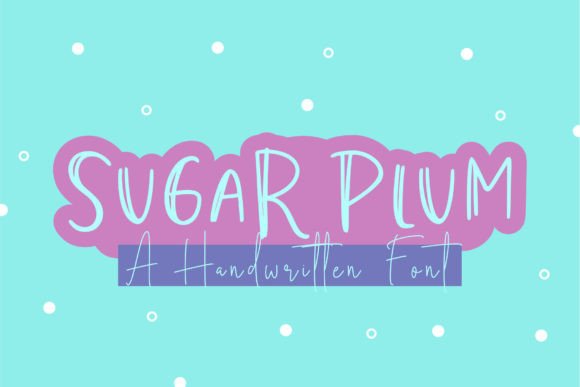
Journey through the fantasy realm of handwritten block art with Sugar Plum Font, a captivating script font that dances playfully across your designs. It's not just font; it's a whimsical adventure, an exploration of creativity that leads to enchanting results.
Sugar Plum is more than just a font; it's a magical ingredient that transforms your words into captivating expressions of art. With its playful charm, Sugar Plum adds a touch of whimsy to any project, creating designs that stand out and captivate. Ideal for quotes, t-shirts, product packaging, branding, social media posts, posters, and any creation that deserves a playful touch.
With Sugar Plum, your designs will blossom into a wonderland of imagination. Its all-caps characters burst with personality, evoking a sense of nostalgia and lightheartedness. Experience the joy of creating designs that spark smiles and ignite conversations.
Sugar Plum isn't just a font; it's an invitation to let your creativity run wild. It's a font that fuels your imagination and inspires you to create designs that are uniquely yours. Embrace the enchantment of Sugar Plum and watch your creative vision come alive.
So, embark on this artistic expedition and immerse yourself in the magic of Sugar Plum Font. Let your designs bloom with enchantment and experience the pure joy of creating with a font that's as whimsical as it is captivating.